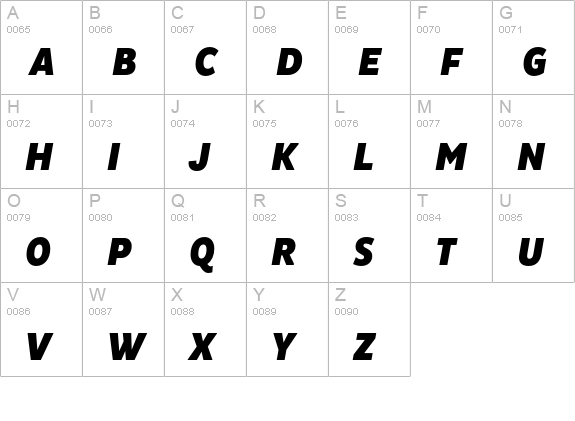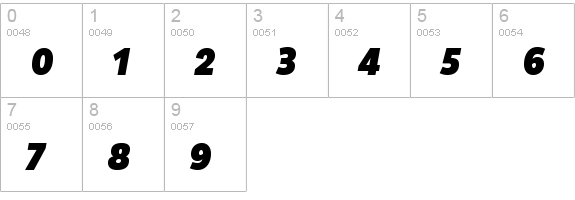
Pluto Sans Cond Black Italic Font Details
Pluto Sans Cond Black Italic is a maximum-weight, dramatic, condensed-width, italic variant in the Pluto typeface family \xE2\x80\x94 well suited to maximum-impact headlines, posters, and packaging.
Pluto Sans Cond Black Italic is a bold and striking typeface that exudes modernity and sophistication. Its sleek design and strong slanted style make it perfect for creating eye-catching headlines or adding emphasis to your designs. The font's sharp angles and elegant curves give it a distinct personality that is both professional and dynamic. The best part? Pluto Sans Cond Black Italic is completely free to download at FontsMarket.com. This means you can enhance your projects with this stylish font without any cost involved. Whether you're working on a branding project, a poster design, or a website layout, Pluto Sans Cond Black Italic will surely make a statement and elevate your content. Don't miss out on this opportunity to access a high-quality font for free and take your designs to the next level with Pluto Sans Cond Black Italic.